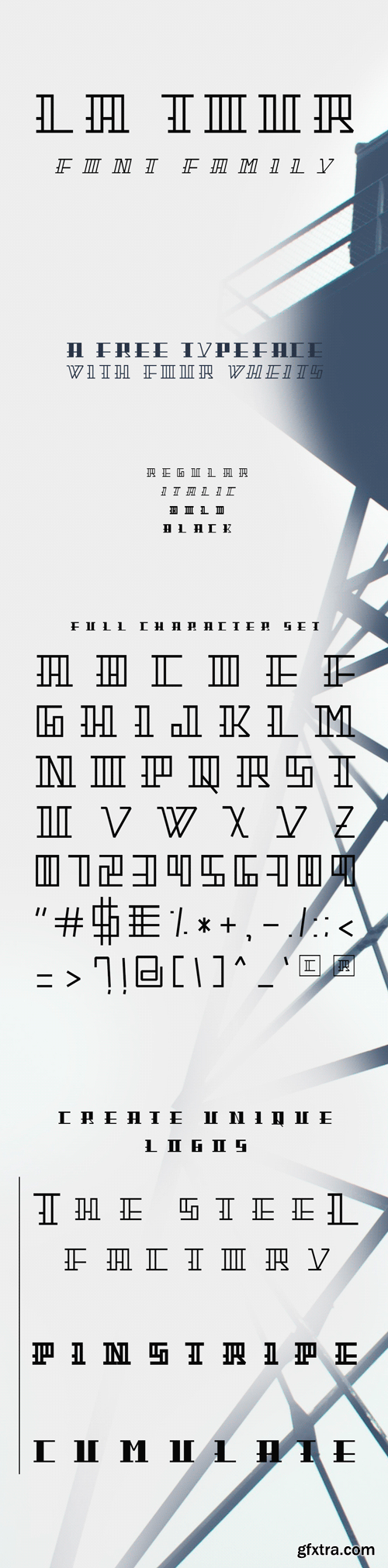
La Tour Font
La Tour is a display font It contains four weights: regular, italic, bold and black and includes uppercase letters, numbers and symbols. La Tour font suites fo creation of unique logotypes and branding designs.